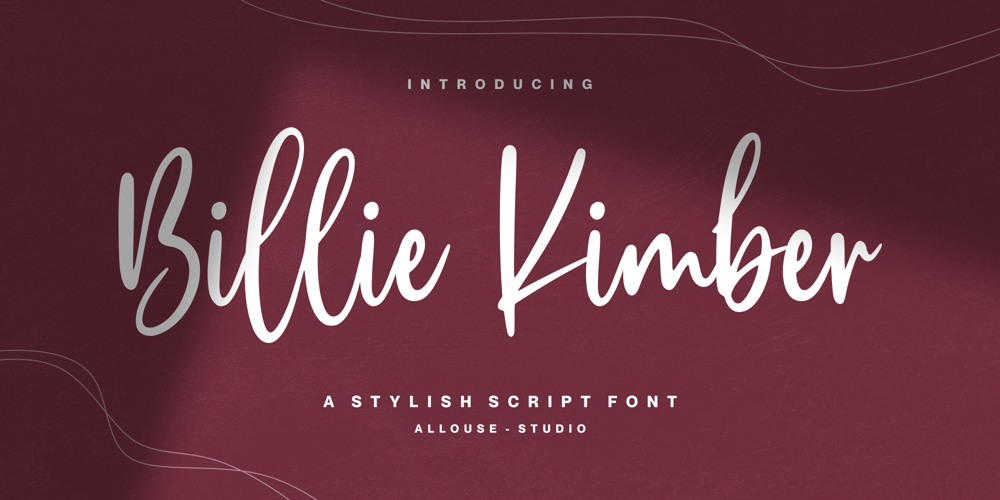
Billie Kimber
Billie Kimber font
Billie Kimber Font Family was designed by Fachrizal Yusuf and published by Allouse Studio. Billie Kimber contains 1 styles and family package options. Proudly Presenting, Billie Kimber A Stylish Script Font.Billie Kimber is perfect for any titles, logo, product packaging, branding project, megazine, social media, wedding, or just used to express words above the background.Billie Kimber also come with Multi-Lingual Support.Enjoy the font, feel free to comment or feedback, send me PM or email. Thank You!